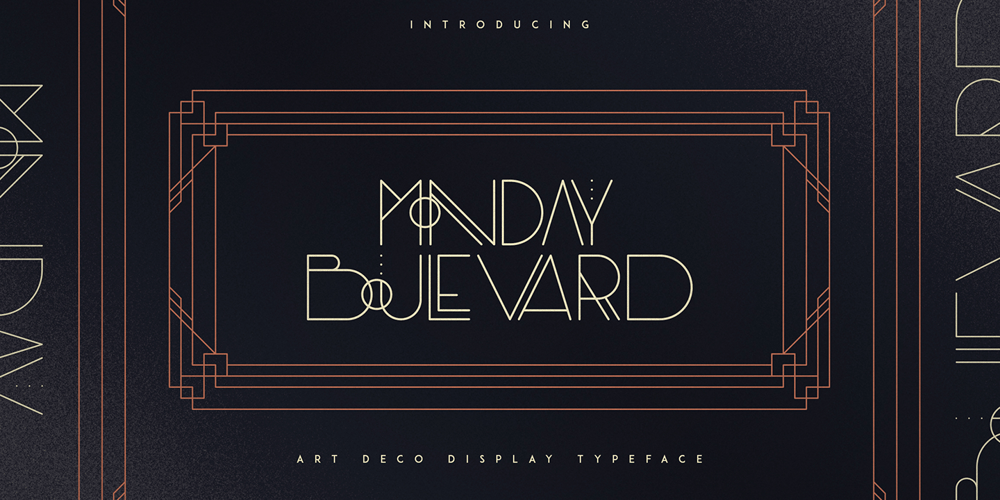
Monday Boulevard Font Family was designed by Vladimir Fedotov, Plamen Petrov and published by VP Creative Shop. Monday Boulevard contains 3 styles and family package options. Introducing Monday Boulevard – Art Deco Typeface – 4 weightsMonday Boulevard is retro, Art Deco typeface with 4 weights, ligature glyphs, alternates and multilingual support. It’s a very versatile font that works great in large and small sizes.Monday Boulevard is perfect for branding projects, home-ware designs, product packaging, magazine headers – or simply as a stylish text overlay to any background image. Uppercase, lowercase, numeral, punctuation & Symbol Light Regular Bold Black Alternate glyphs Ligatures Multilingual support How to access alternate glyphs?To access alternate glyphs in Adobe InDesign or Illustrator, choose Window Type & Tables GlyphsIn Photoshop, choose Window Glyphs. In the panel that opens, click the Show menu and choose Alternates for Selection. Double-click an alternate’s thumbnail to swap them out.Feel free to contact me if you have any questions!Mock ups and backgrounds used are not included.Thank you! Enjoy!